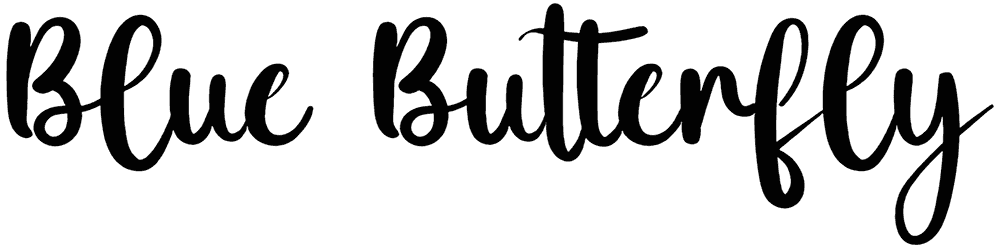
Blue Butterfly Font
Trying to soften up your words? A rounded script font can do this for you like no other! Blue Butterfly font has a bold and continuous design that will put a rounded ending on each character. It will give a cheerful and calming look to your presentation and give a sense of friendliness to your readers.
You can use this wedding font for any informal headlines, cartoon titles, channel banners, and product packaging. Just remember that almost all the alphabet is lowercase.